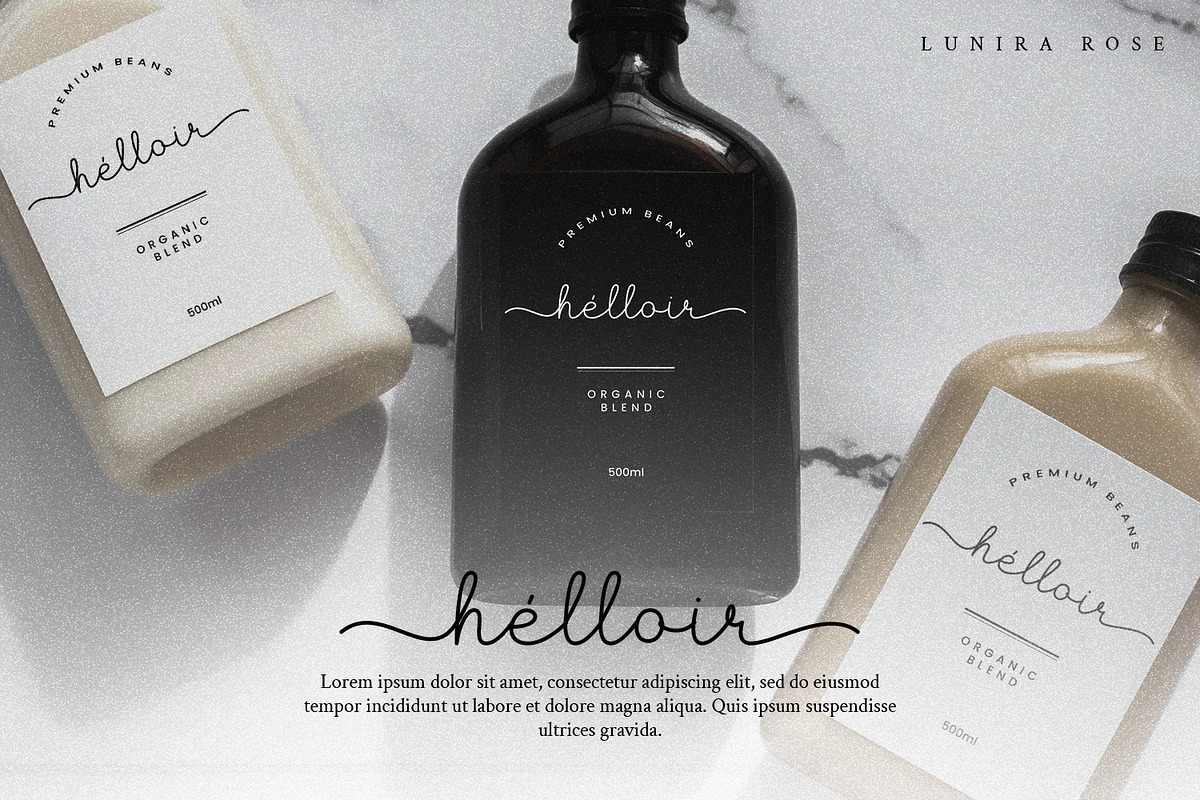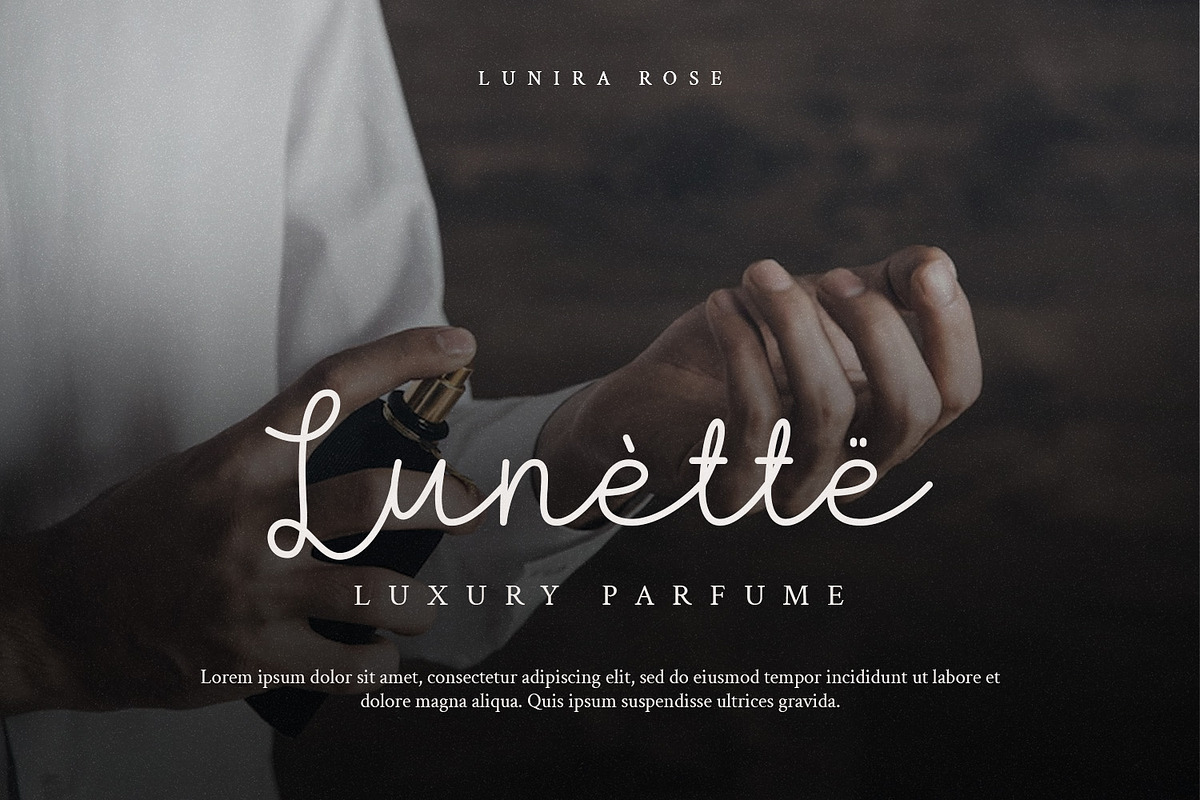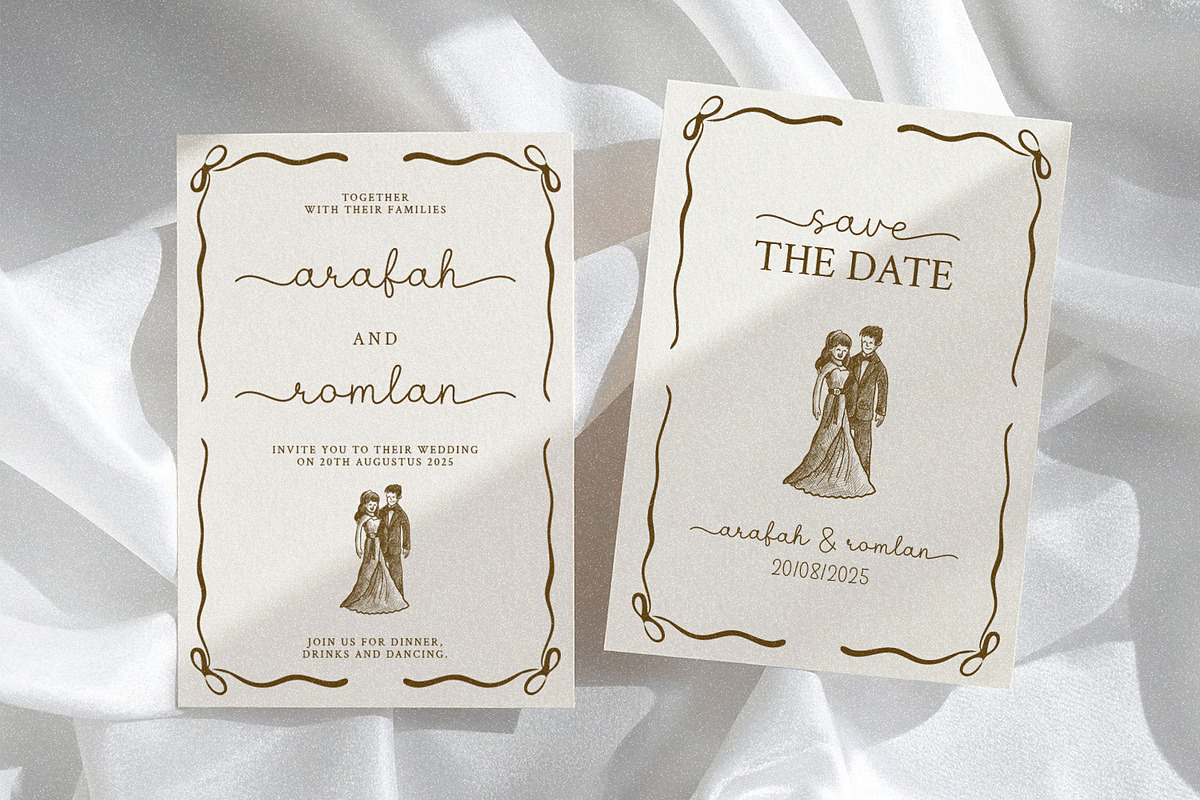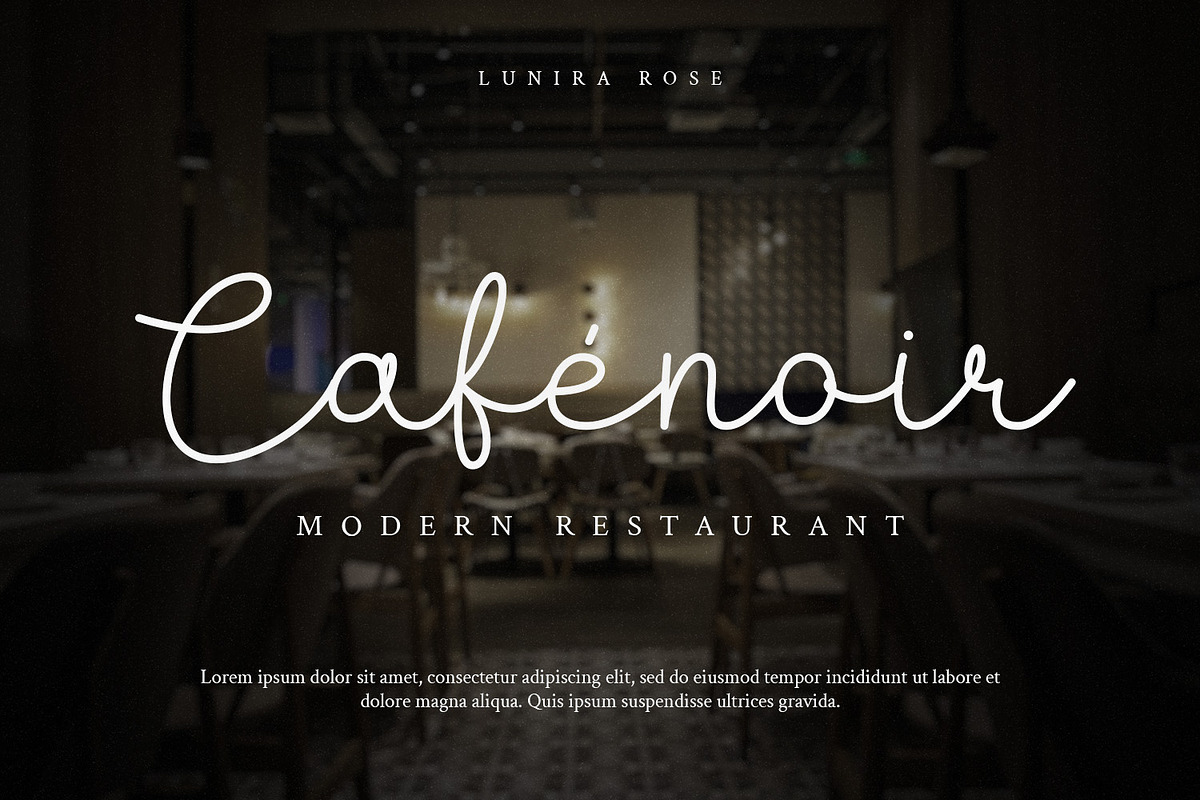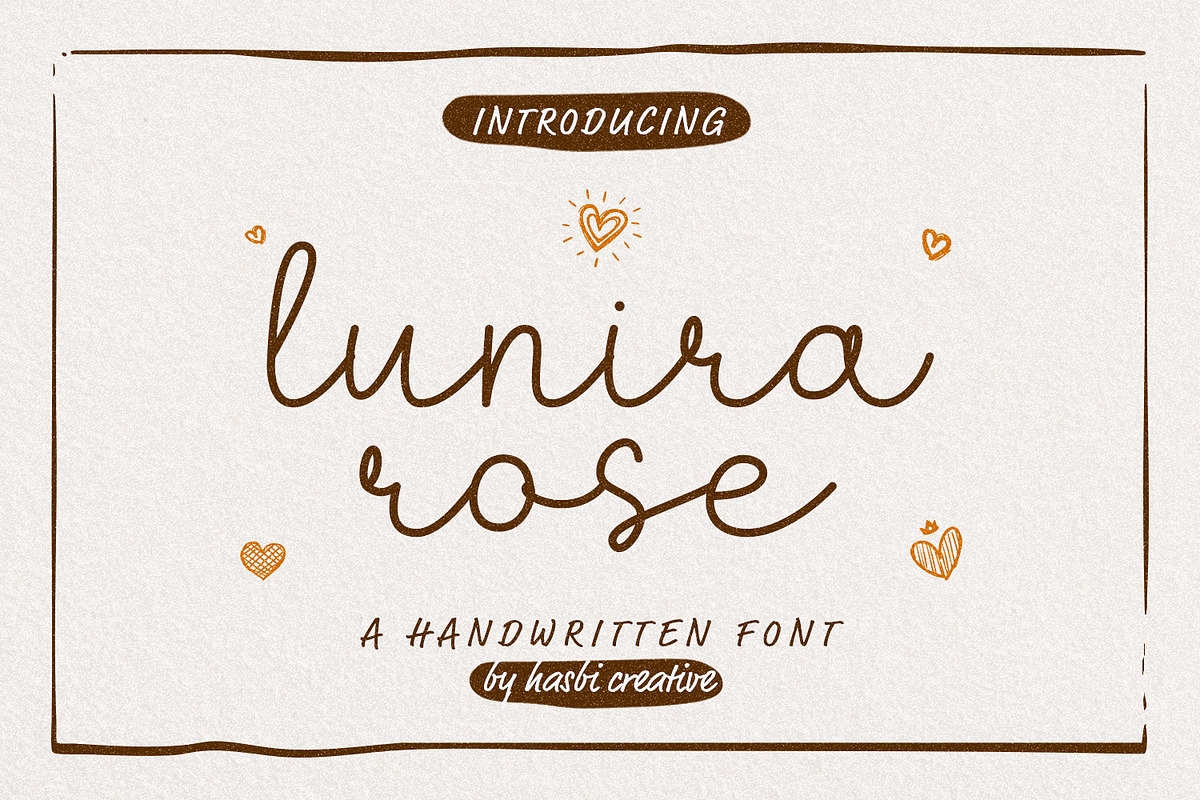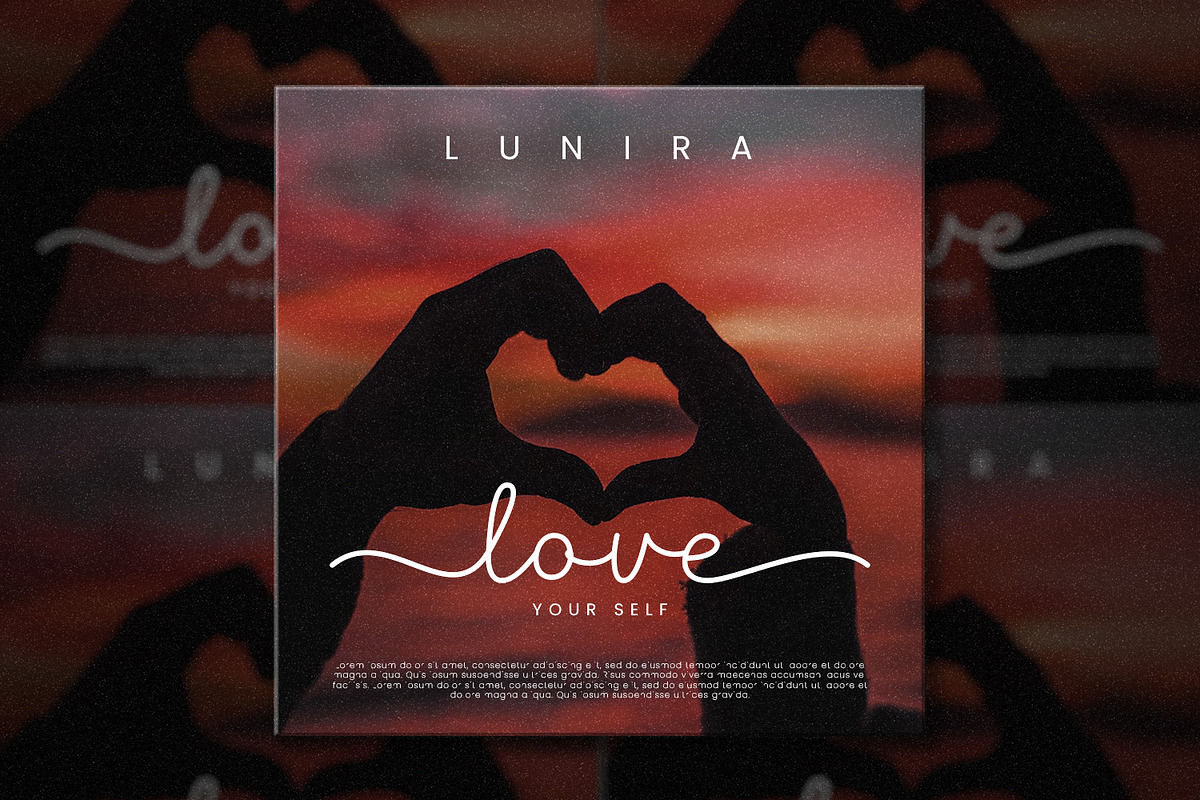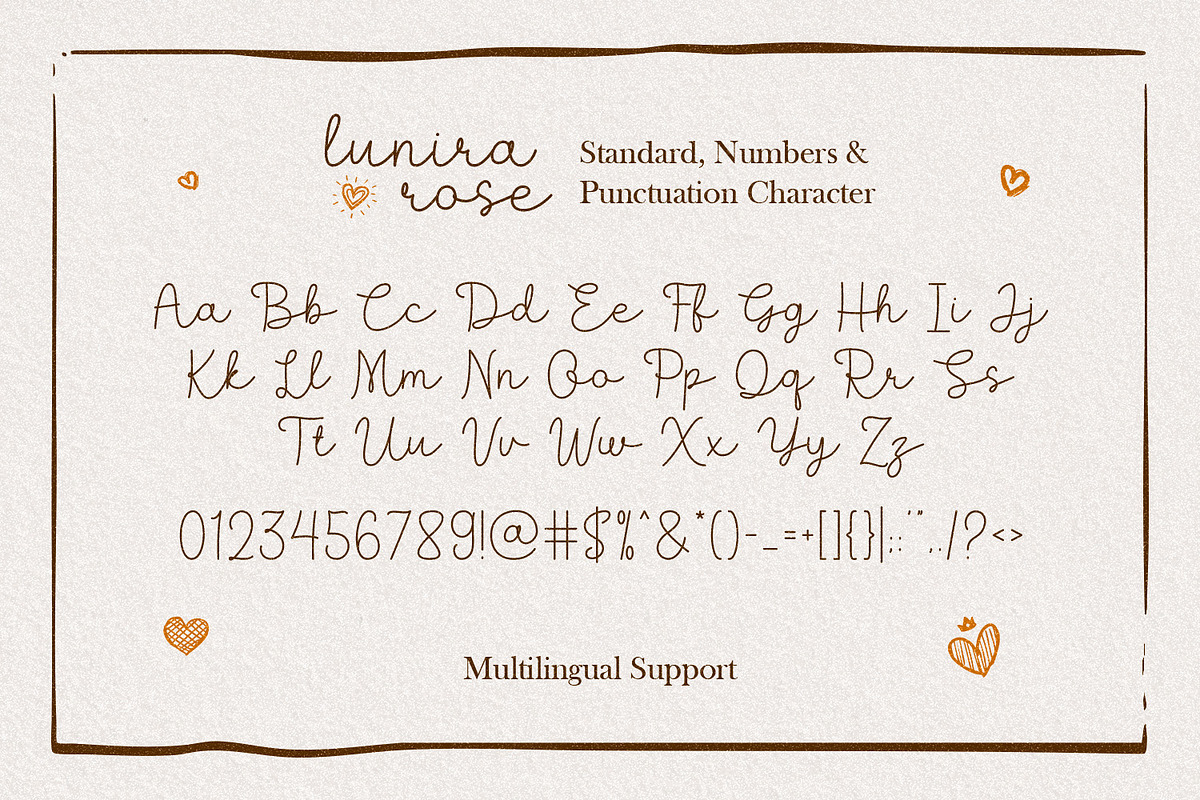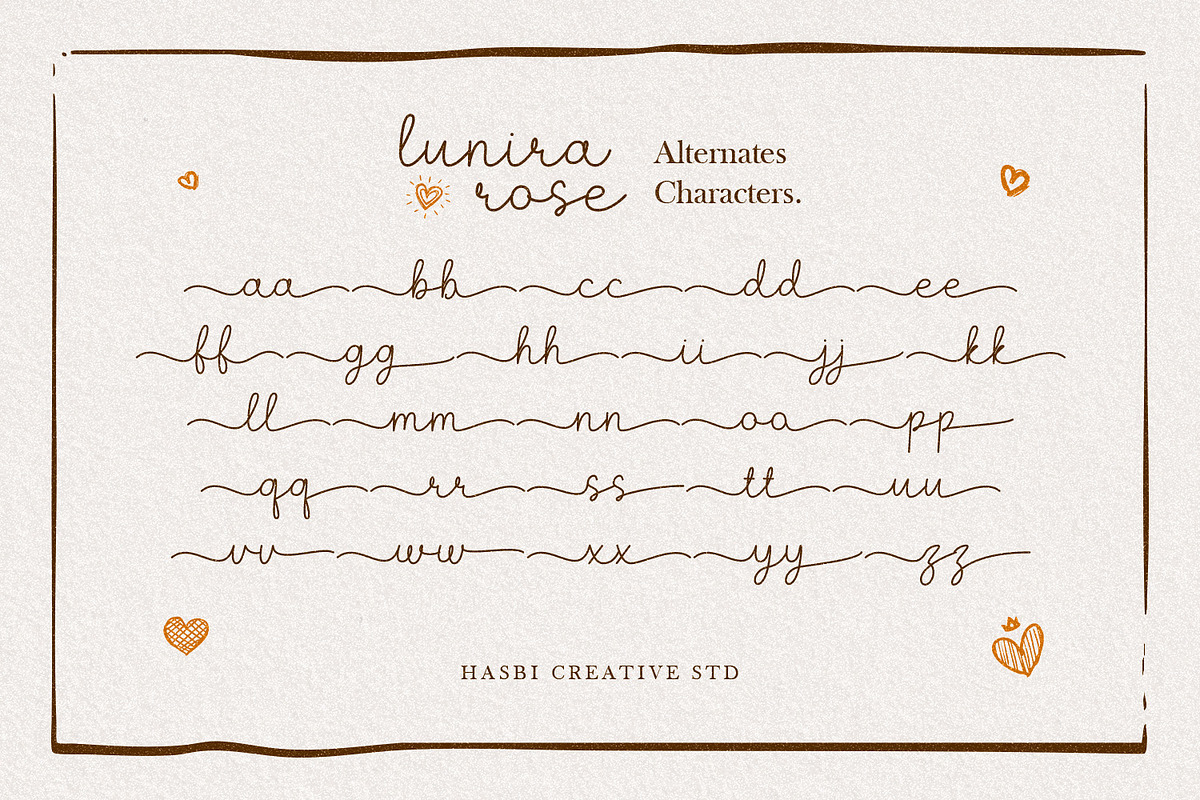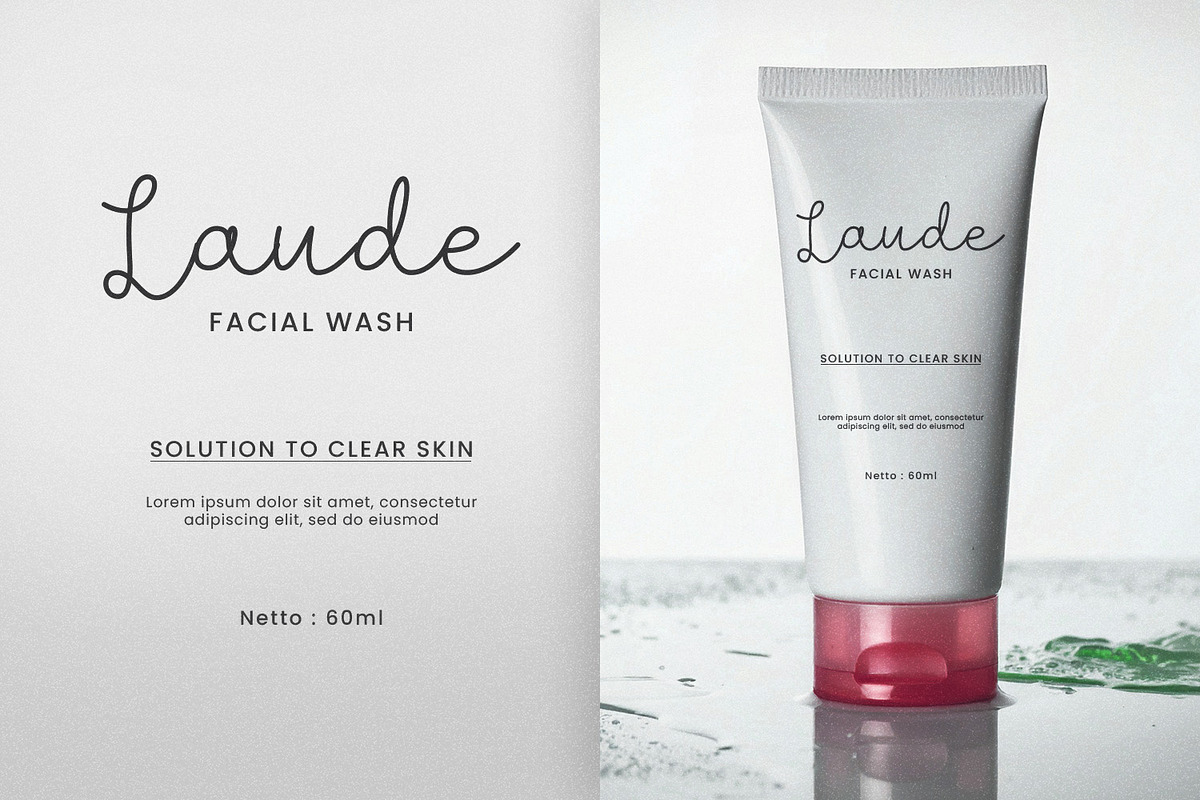
Lunira Rose - Handwritten Script
Lunira Rose is a charming handwritten font that brings warmth and personality into your design. Its smooth curves and gentle strokes make it perfect for anything that needs a soft, personal touch. Whether you're designing invitations, quotes, branding, or greeting cards, Lunira Rose adds a lovely handmade feel.
Uppercase & Lowercase Characters
Wedding Invitations
Social Media Posts
Greeting Cards & Notes
Logo & Branding
Personal Projects & DIY Crafts
Let your words bloom with the delicate charm of Lunira Rose 💛